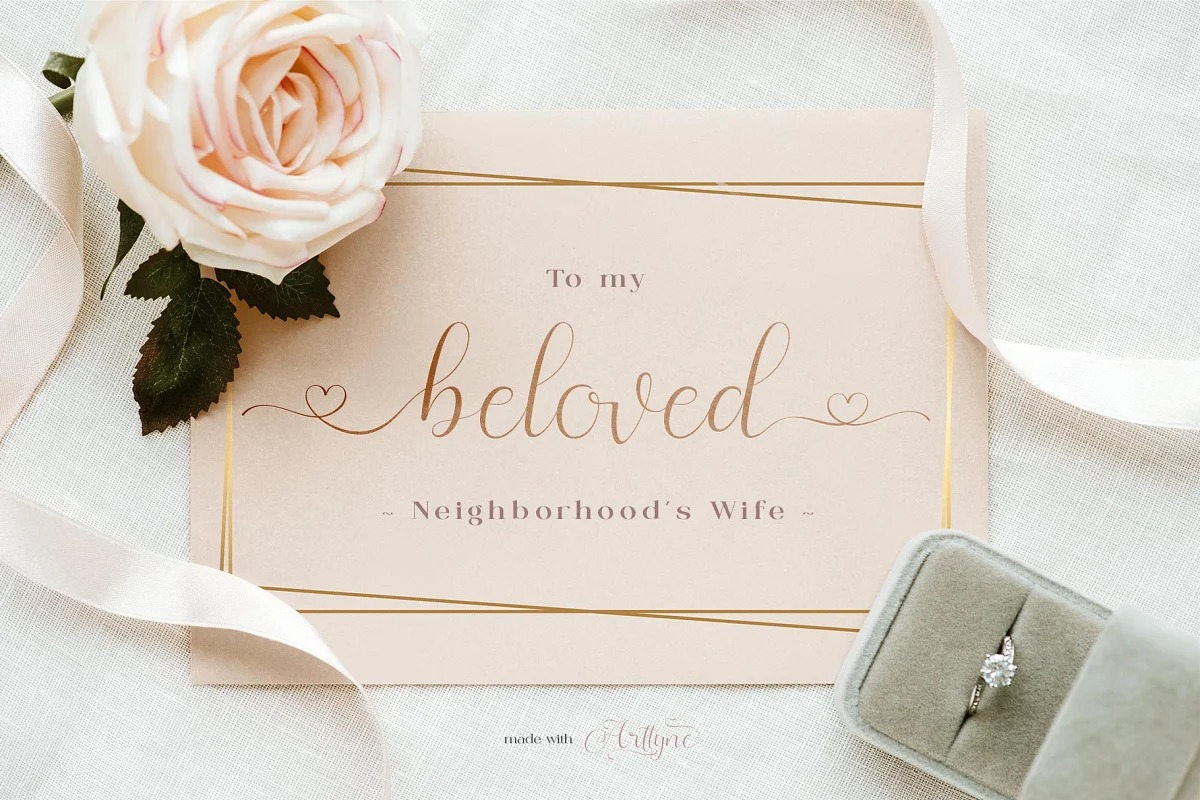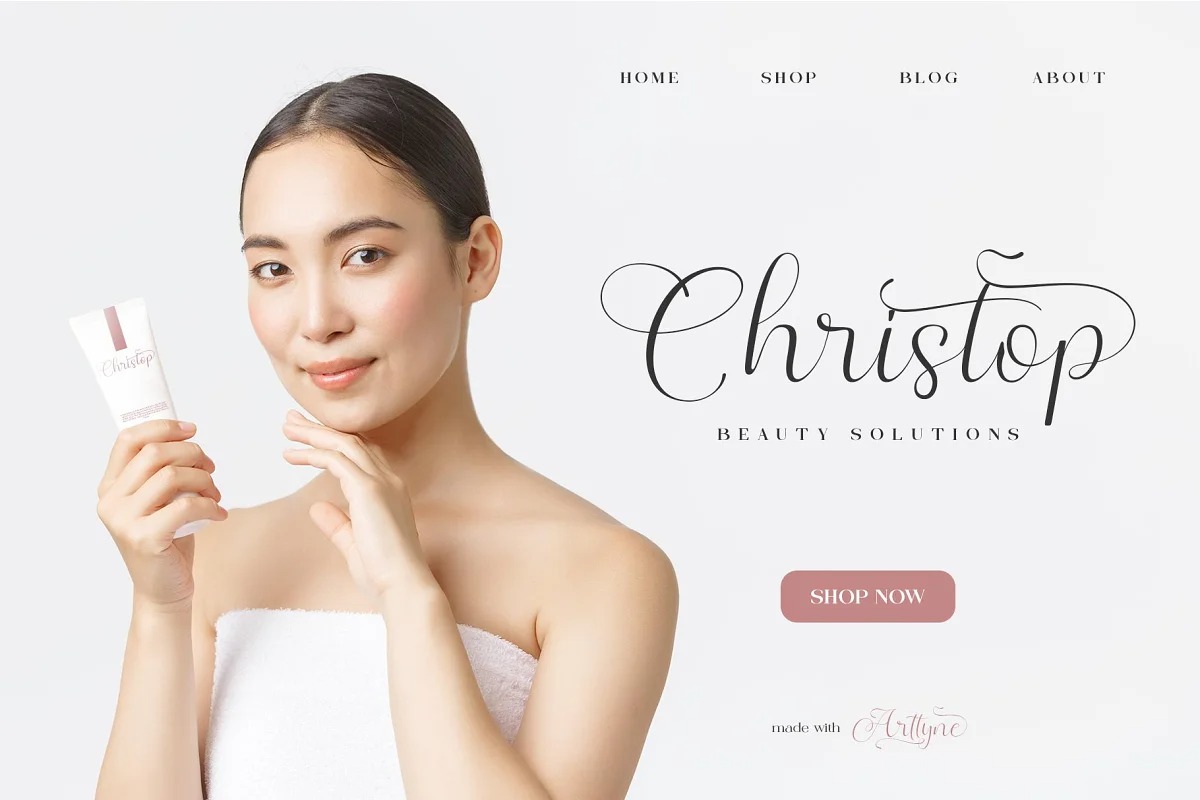
Arttyne Calligraphy Font
This is a beautiful font perfect for decorating your big events. It’s designed and shared by alit design. The Arttyne Modern Script Font adheres to a simple and elegant modern script style, besides that this font has a unique swash in the shape for unique love designs.
Very suitable for use in making greeting card designs, Instagram posts, logo designs, wedding texts, romance quotes and so on, the first is about love.